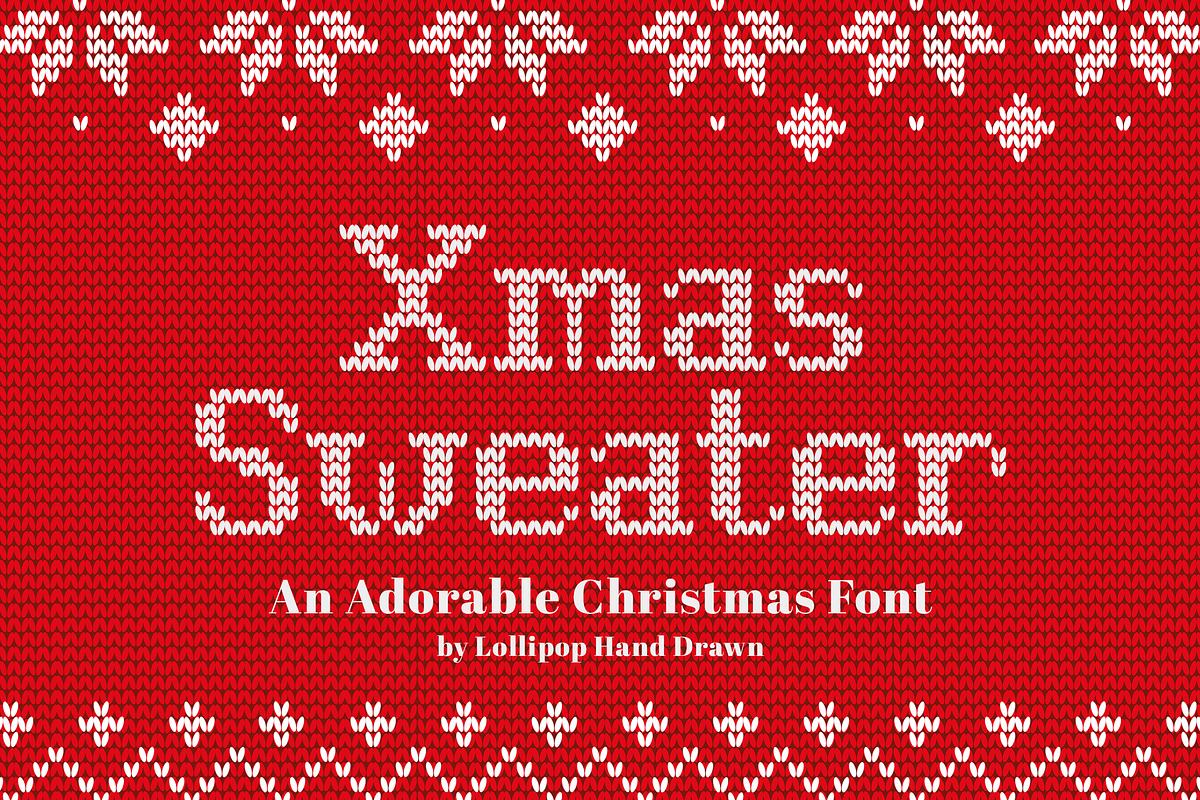
Xmas Sweater Font Free Download is a festive and charming typeface designed to bring the cozy warmth of the holiday season to your designs. Inspired by knitted patterns and the spirit of Christmas, this font is perfect for holiday cards, gift tags, party invitations, and seasonal branding. Its playful yet elegant letterforms make it ideal for creating joyful designs that evoke the comfort and joy of the holidays. Whether you're designing for a Christmas-themed event, a winter sale, or a family celebration, Xmas Sweater Font Free Download allows you to explore its holiday charm in personal projects before purchasing a commercial license. Add a cozy, festive feel to your designs with this wonderfully seasonal font.